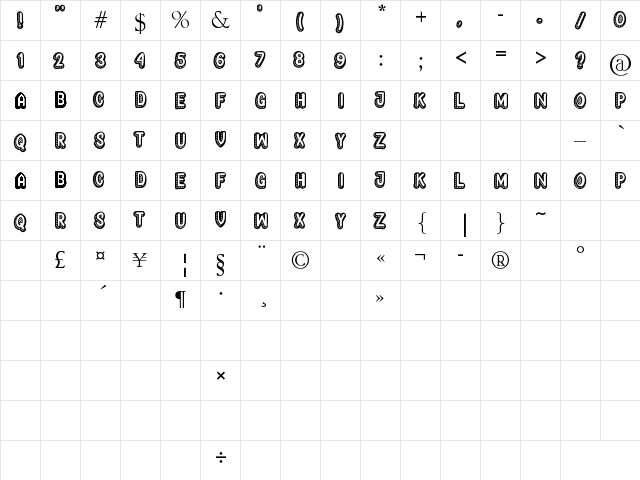
Yagitudeh Regular
Design Context for Yagitudeh Typeface
Yagitudeh is a composed and adaptable typeface that performs quietly and consistently across a wide range of design contexts.